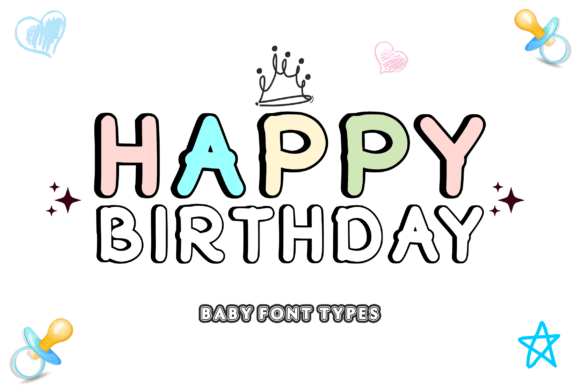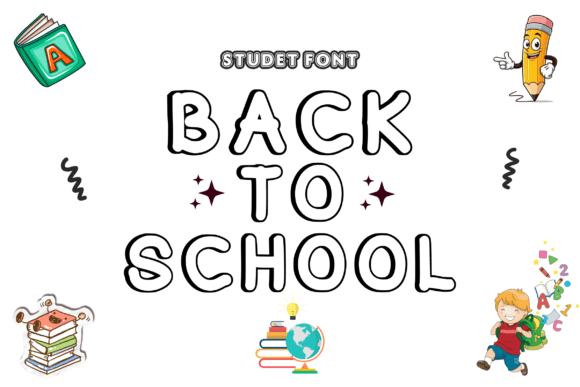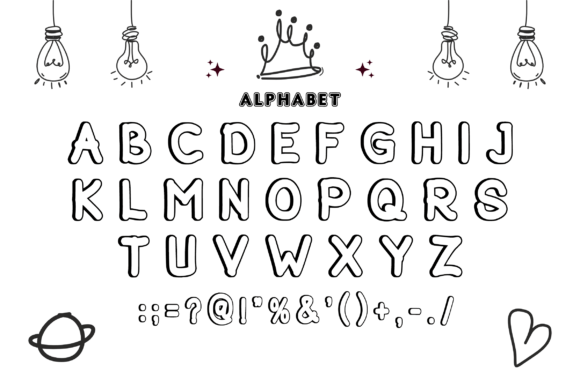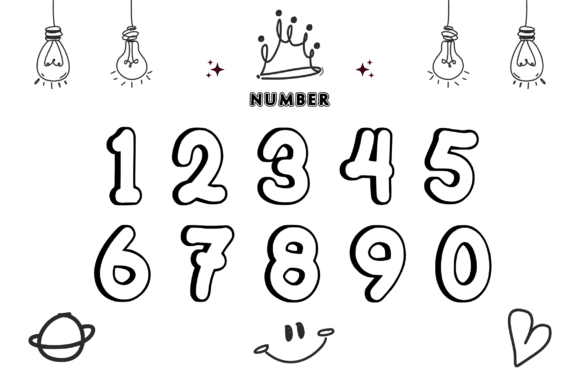
Babydoddle Regular Font: The Ultimate Choice for Creative Designs
Are you a designer or crafter looking for a font that can add a touch of magic to your creations? Look no further than the Babydoddle Regular Font, also known as “Baby Doodle” typeface. This enchanting modern outline font is perfect for creating stunning designs for your little ones, and its charm and readability make it an excellent choice for a wide range of projects.
The Characteristics of Baby Doodle Font
The “Baby Doodle” font is crafted to be delightful and charming, offering easy recognition and readability. Its modern outline design makes it perfect for creating visually appealing designs that are sure to capture the attention of your audience. Each letter is carefully designed to be unique and playful, making it an excellent choice for designs that require a touch of whimsy.
Uses of Baby Doodle Font
The “Baby Doodle” font lends its magic perfectly to a variety of design projects, including:
- Sublimation designs on t-shirts: Create stunning and unique designs for kids’ t-shirts that are sure to make them stand out.
- Eye-catching prints on mugs and tote bags: Add a touch of personality to everyday items like mugs and tote bags with the “Baby Doodle” font.
- Adorable animations: Use the “Baby Doodle” font to create engaging and interactive animations that kids will love.
- Whimsical comic titles: Add a touch of playfulness to your comic titles with the “Baby Doodle” font.
Unleash Your Creativity with Baby Doodle Font
The “Baby Doodle” font is the perfect choice for designers and crafters who want to unleash their creativity and create unique and engaging designs. With its modern outline design and playful charm, this font is sure to inspire you to create stunning designs that will capture the attention of your audience.
Why Choose Baby Doodle Font?
There are many reasons why you should choose the “Baby Doodle” font for your design projects. Here are a few:
- Unique and playful design: The “Baby Doodle” font has a unique and playful design that is sure to make your designs stand out.
- Easy recognition and readability: The font is crafted to be easy to read and recognize, making it perfect for designs that require clear communication.
- Versatile: The “Baby Doodle” font can be used for a wide range of design projects, from sublimation designs to animations.
Tips for Using Baby Doodle Font
Here are a few tips for using the “Baby Doodle” font in your design projects:
- Use it for kids’ designs: The “Baby Doodle” font is perfect for designs for kids, such as t-shirts, mugs, and tote bags.
- Experiment with different colors: The “Baby Doodle” font looks great in a variety of colors, so don’t be afraid to experiment and find the perfect color for your design.
- Pair it with other fonts: The “Baby Doodle” font can be paired with other fonts to create a unique and interesting design.
The Babydoddle Regular Font, also known as “Baby Doodle” typeface, is an enchanting modern outline font that is perfect for designers and crafters who want to create unique and engaging designs. With its playful charm and easy recognition and readability, this font is sure to inspire you to create stunning designs that will capture the attention of your audience. So why wait? Unleash the creative monster within you and let the “Baby Doodle” font take the reins!